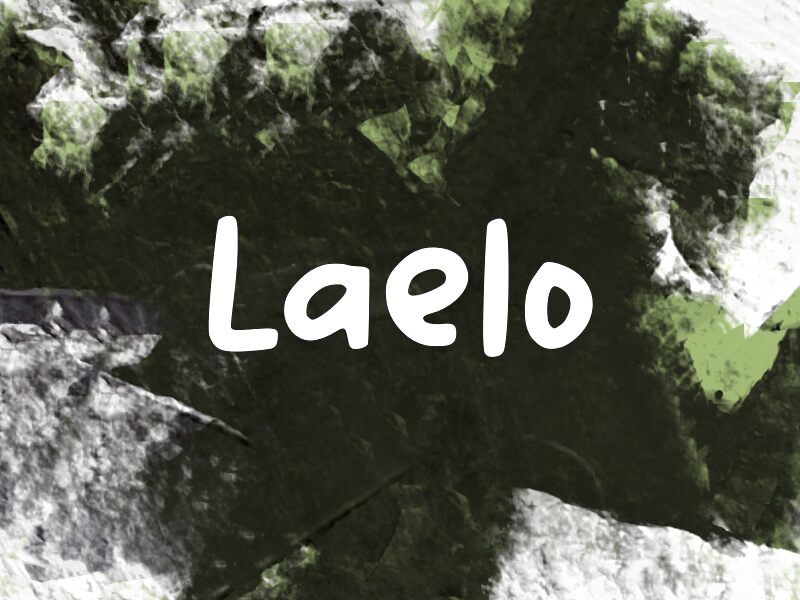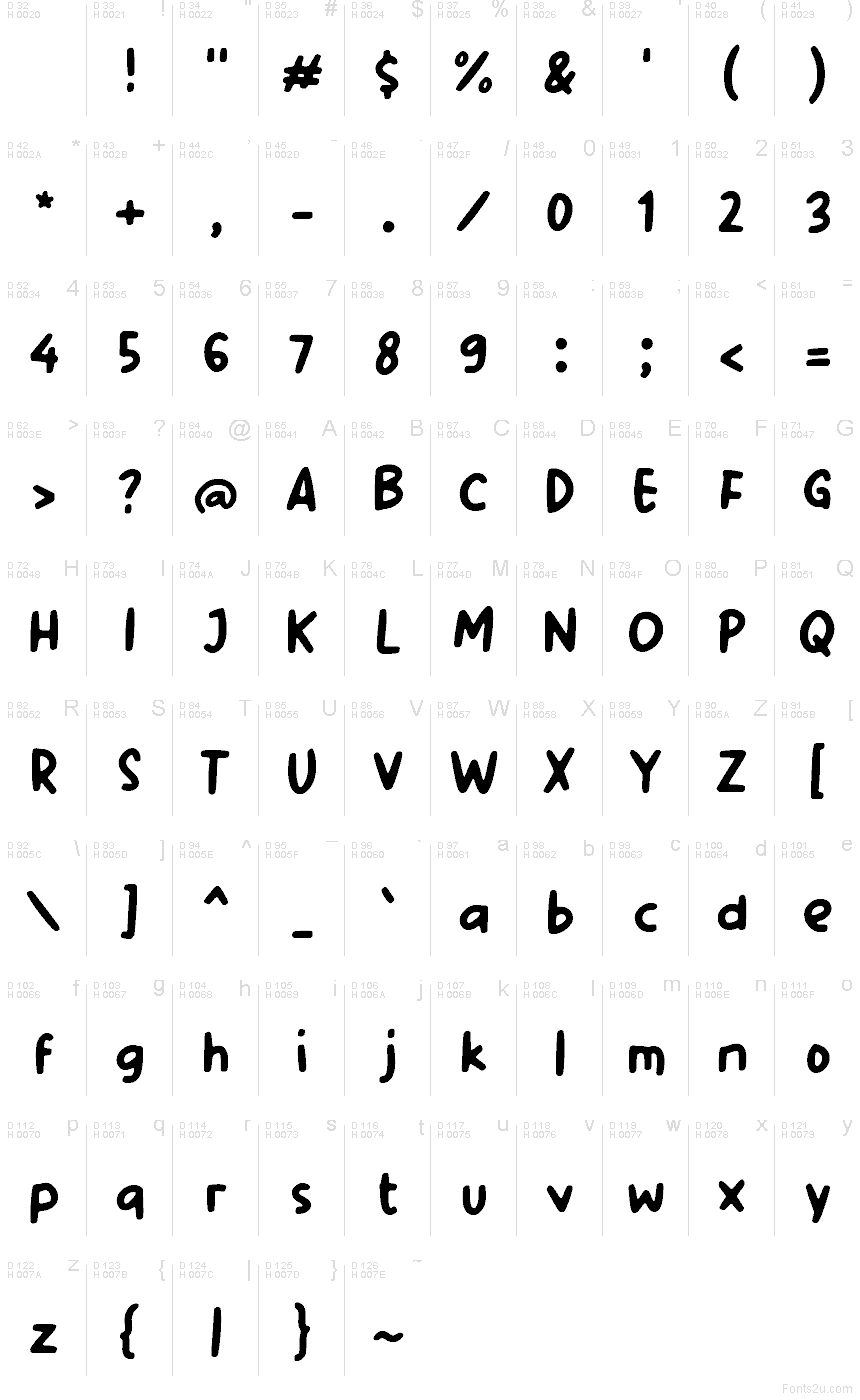
Laelo
Laelo font by wep is a free cartoon display typeface with chunky, inky strokes that feel like they’ve been painted in one confident sweep. The letters swell and taper in all the right places, giving every word a slightly bouncy, hand-drawn rhythm that’s playful without turning messy. Rounded corners and soft curves keep it friendly and approachable, making it easy to read even at larger sizes where its personality really pops.
Using Laelo, you can bring a warm, storybook energy to kids’ branding, game titles, YouTube thumbnails, classroom posters, birthday invitations, and casual logo work. This free font shines when you let it breathe—use it big for headlines and pair it with a clean, light sans serif for small supporting text.